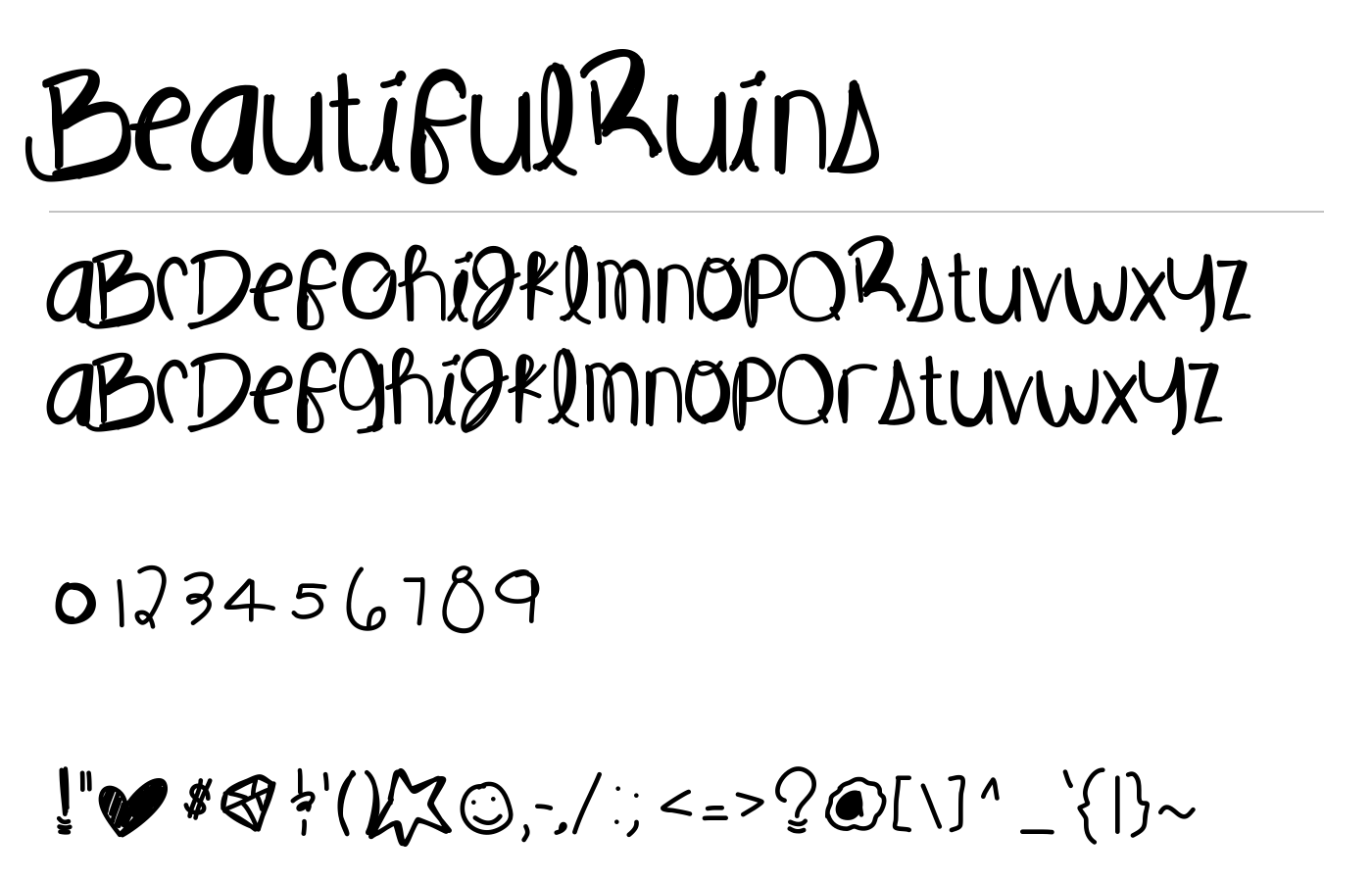
BeautifulRuins is a playful, handwritten-style font with a casual and informal feel. Its irregular, slightly quirky letterforms and varied stroke widths give it a friendly and creative personality, perfect for designs that want to evoke warmth and individuality. This font works well for personal projects, invitations, children's materials, or any context needing a fun, approachable touch.
BeautifulRuins Font
About BeautifulRuins Font